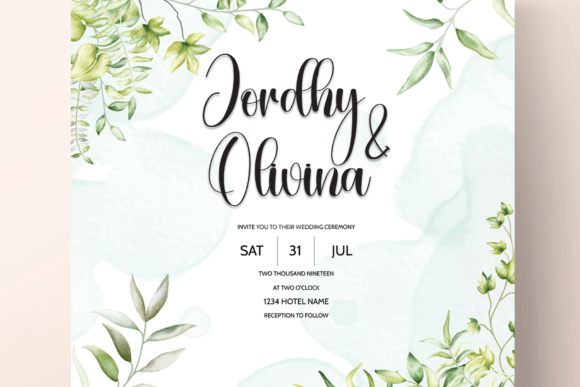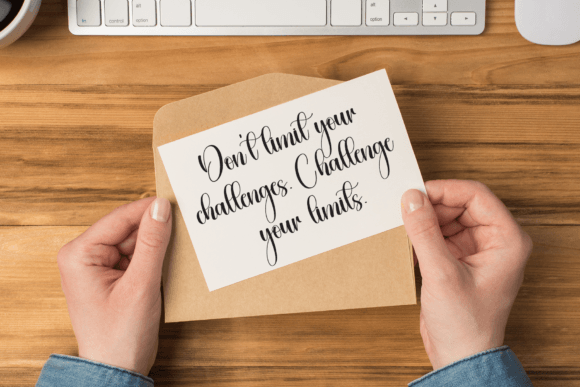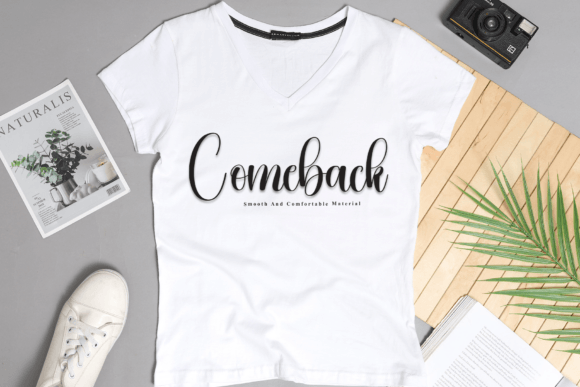
Introduction to Halloweentown Font
Halloweentown is a charming and casual typeface that looks like it was written by hand.
It features uneven letters and a natural flow, giving it a warm and friendly feel Perfect for personal projects, invitations, and anything that needs a cozy, handmade touch.